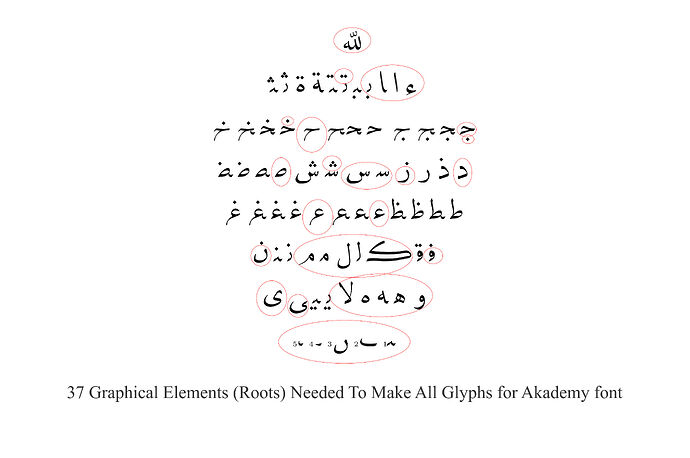
A valuable study by Yannis Haralambous about Simplification of the Arabic Script, he introduce Three Different Approaches and their Implementations, this idea belong to fifties he describe and discuss these projects and their implementations.
I like the idea of making letters from components (graphical elements) as some times called (Roots), So I take one of these projects mentioned in Yannis study and reproduce the font that he called (Akademy), the amazing thing about is that, I just used (37) component (graphical elements) while he use (72-74 graphical elements) .. please see attachments..Enjoy.
If I am correct, Yannis Haralambous first published this article back in 1998. Back then OpenType support and font editors where very basic. The first version of FontCreator, released as The Font Creator Program 1 in March 1998, didn’t support the OpenType internals. It evolved into one of the most advanced visual OpenType font editors known today.
I like the font, although the design needs some more work, nevertheless I hope other people get inspired by your work!
sure the Akademy font need more work, because I was kept the original source designs it was with low quality.